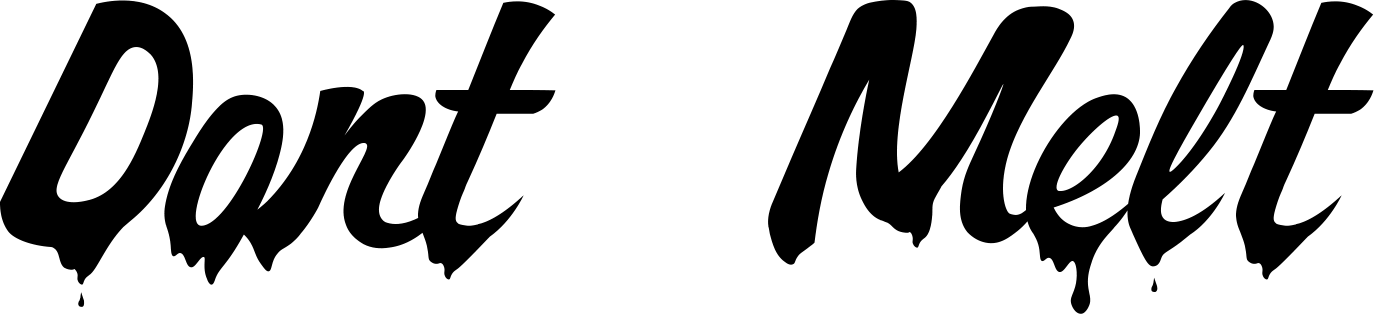
Dont Melt Font
Dont Melt font has a melting effect that you can connect with a subject that has the same effect, for example, a topic about melting ice in Antarctica, ice cream trucks, and brands and logos. This melting font comes in t…
Dont Melt font has a melting effect that you can connect with a subject that has the same effect, for example, a topic about melting ice in Antarctica, ice cream trucks, and brands and logos.
This melting font comes in two styles that you can choose from. Each of them contains both uppercase and lowercase alphabets but the Drip-style doesn’t have numbers.